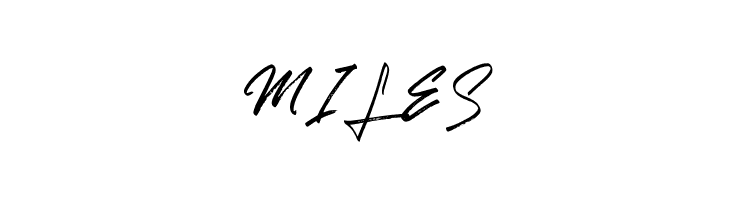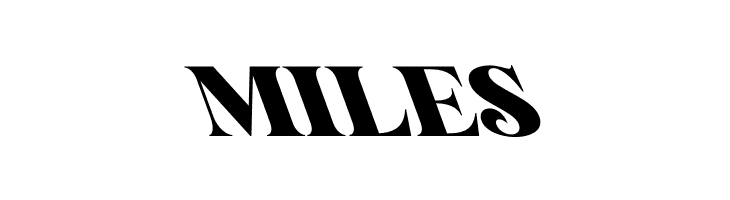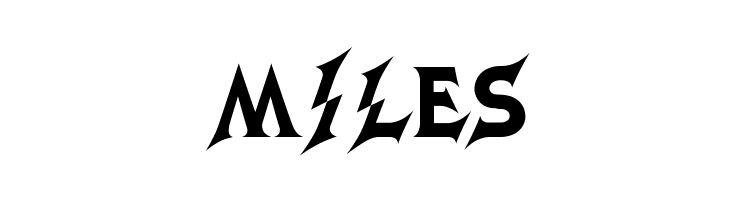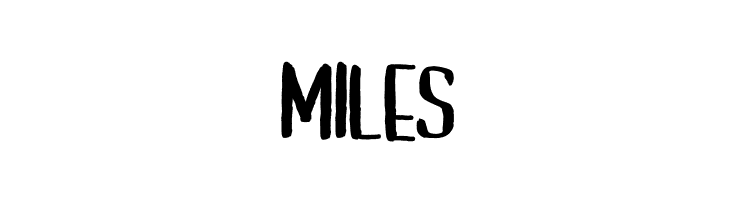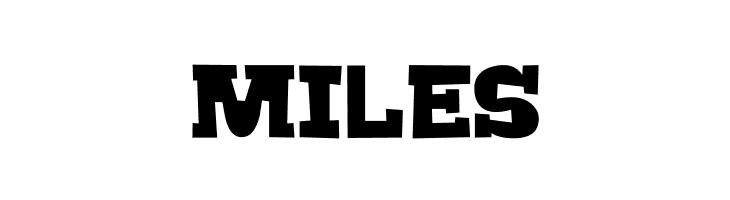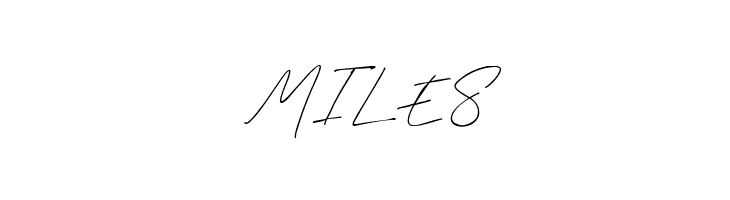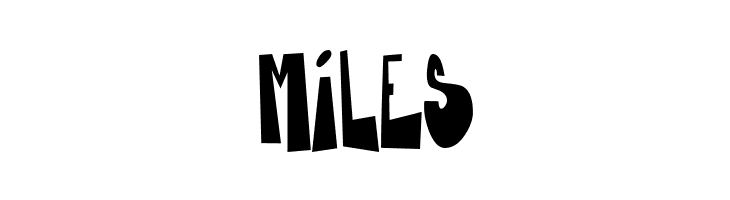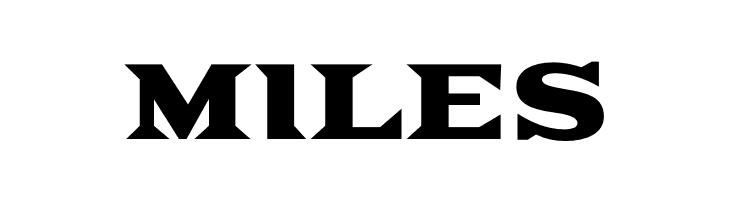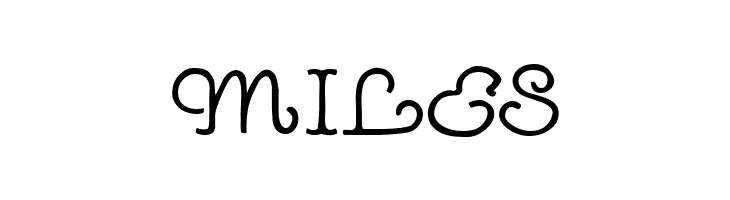
A bold slab serif font with a modern twist, offering strength and versatility.
A whimsical and playful font with curvy lines and decorative swirls.
A playful, casual handwritten font with fluid strokes and rounded edges.
A bold, geometric font with a vintage industrial style.
A bold, geometric sans-serif font with a modern, monospaced appearance.
A bold, geometric font with a modern, industrial aesthetic.
A playful, handwritten font with smooth curves and consistent strokes.
A bold, brush-style font with a dynamic, hand-drawn appearance.
A bold, modern font with playful curves and expressive strokes.
A bold, geometric font with sharp edges and a modern aesthetic.
A bold, dynamic font with sharp angles and decorative swashes.
A modern serif typeface with clean lines and balanced proportions.
A bold slab serif font with strong, block-like serifs and excellent readability.
A playful, bold font with rounded, hand-drawn characters.
A playful and energetic script font with fluid, dynamic strokes.
A bold, high-contrast font with elegant flourishes and dramatic style.
A bold, oblique serif font with high contrast and decorative elements.
A bold, geometric font with a modern and impactful style.
A bold, italicized font with a dynamic and modern style.
A bold, geometric font with a strong, modern presence.
A bold, italic font with a modern, dynamic style and high contrast.